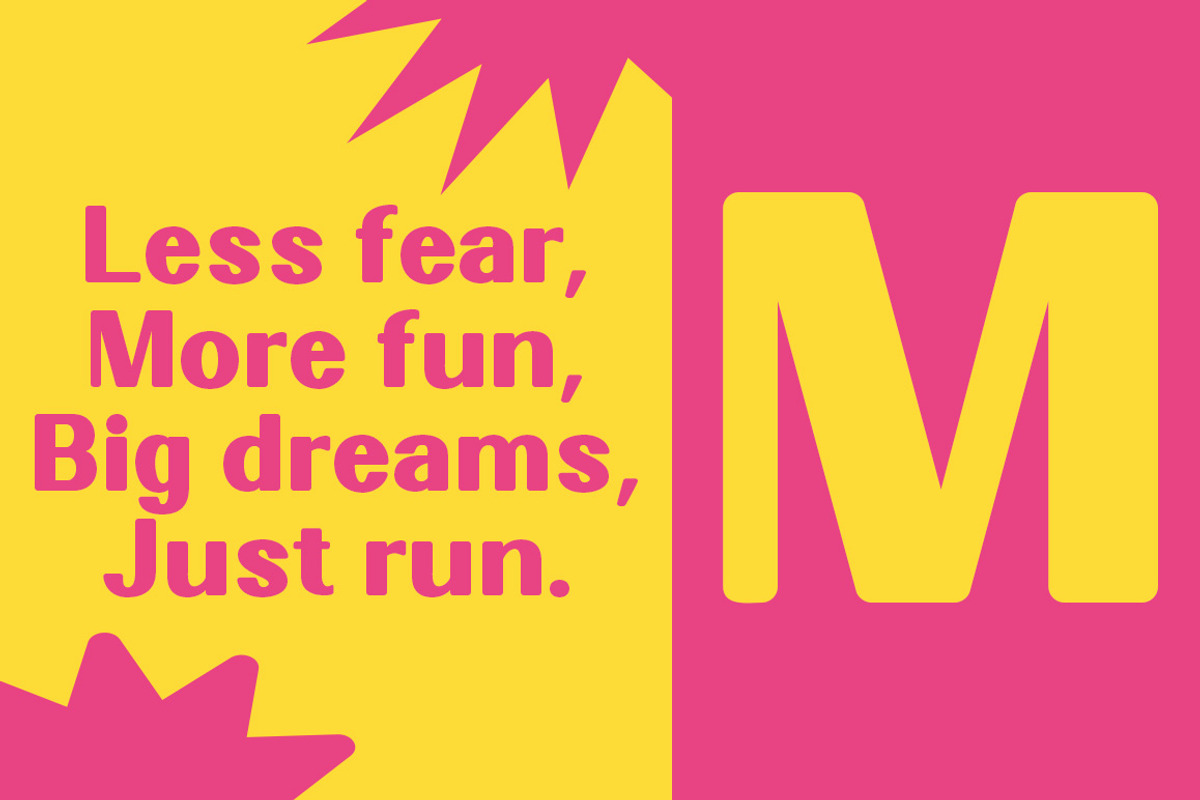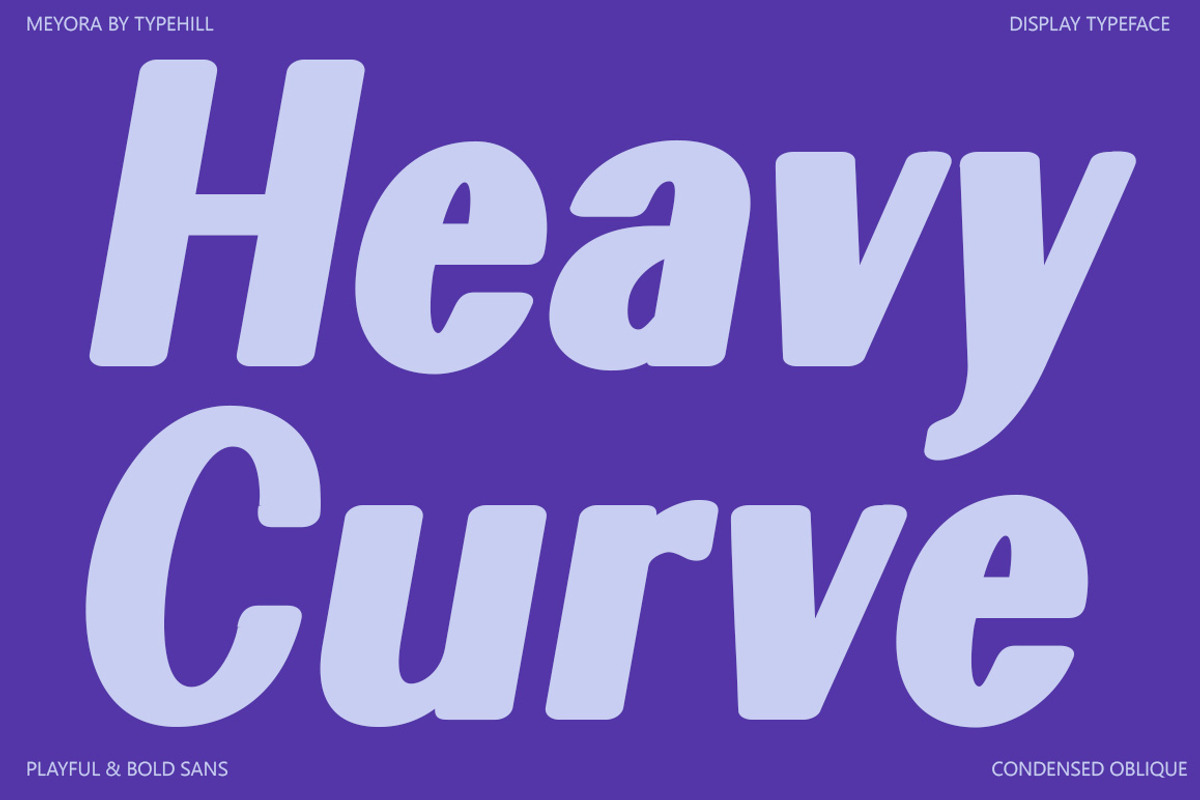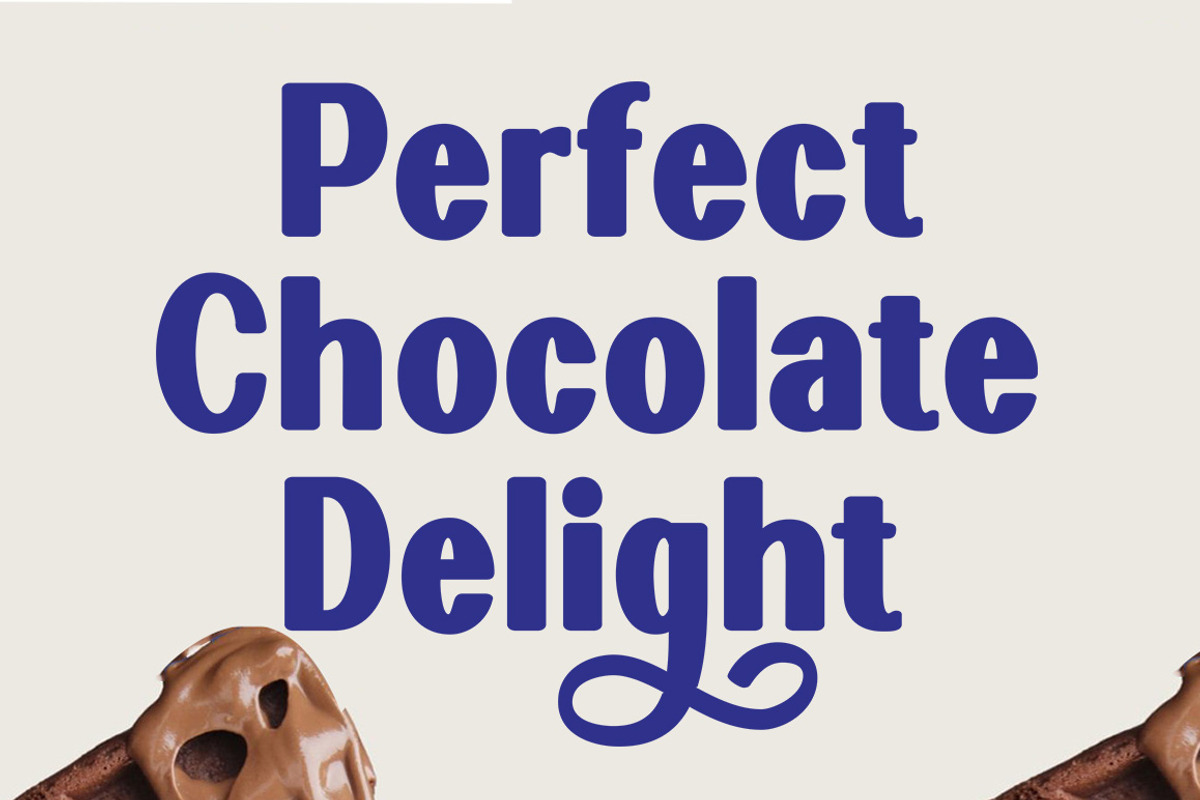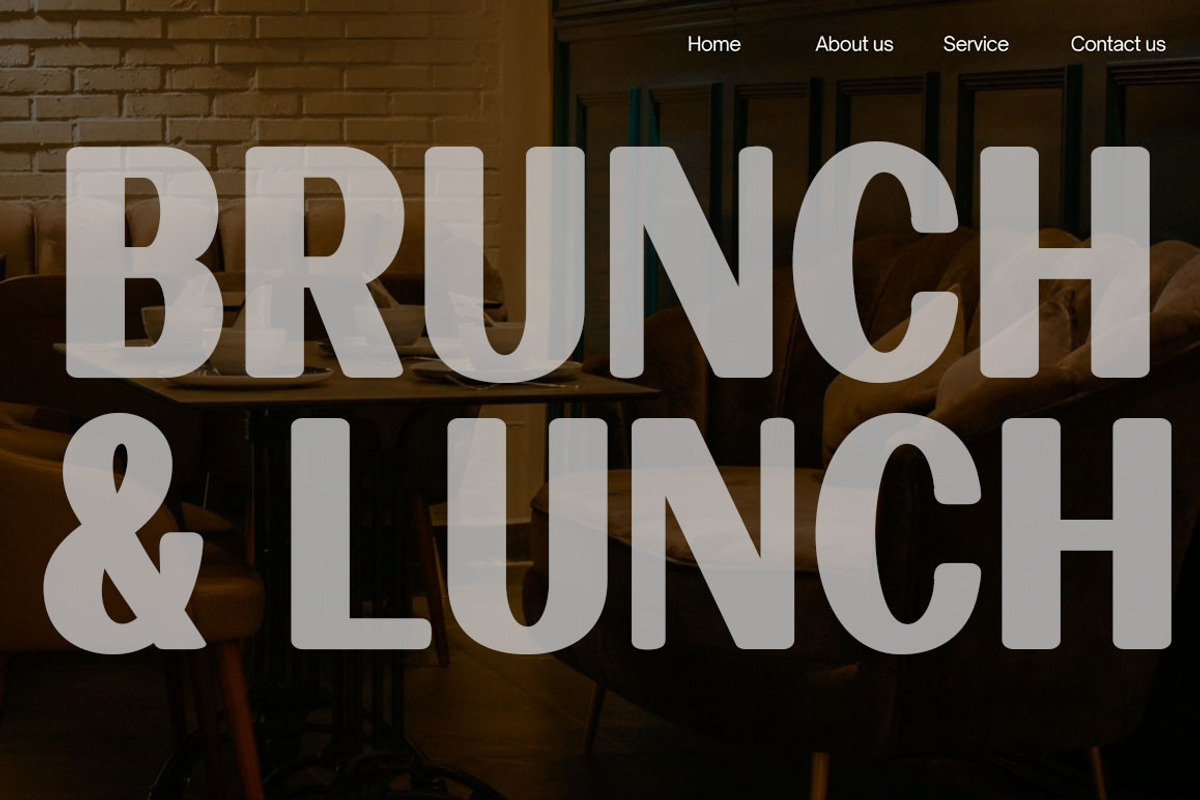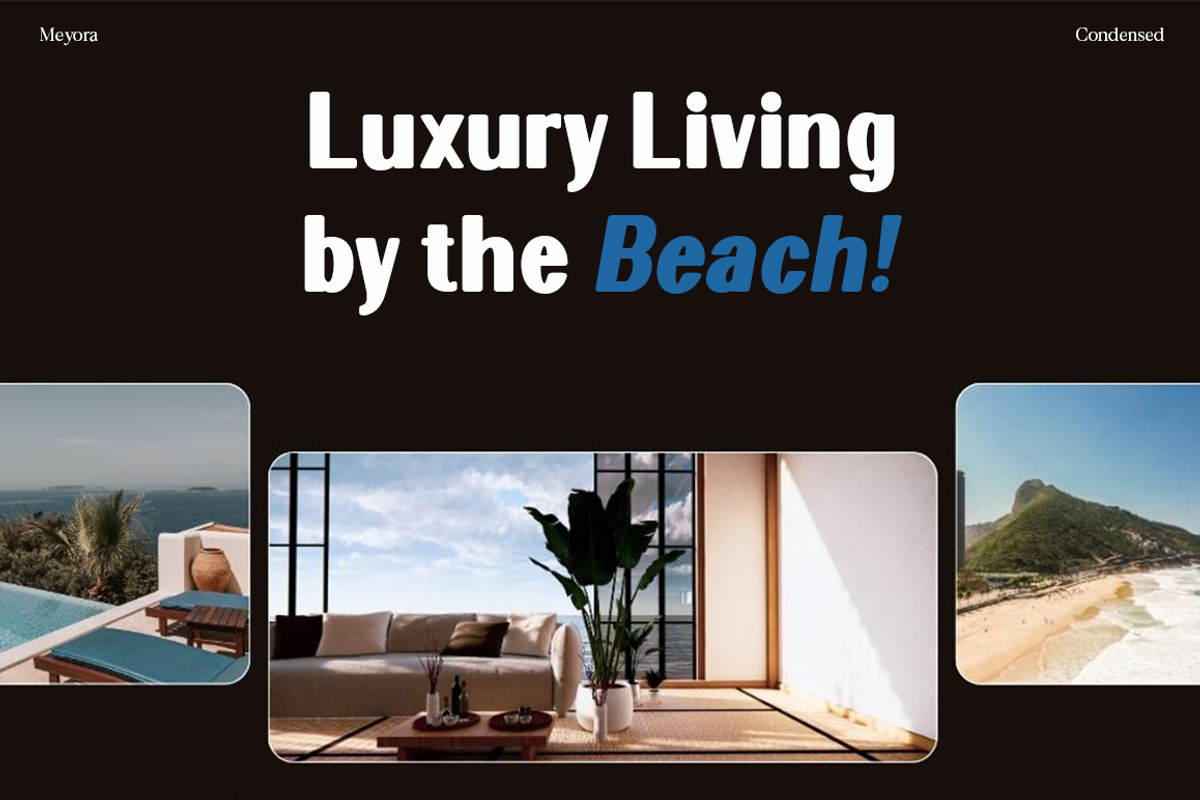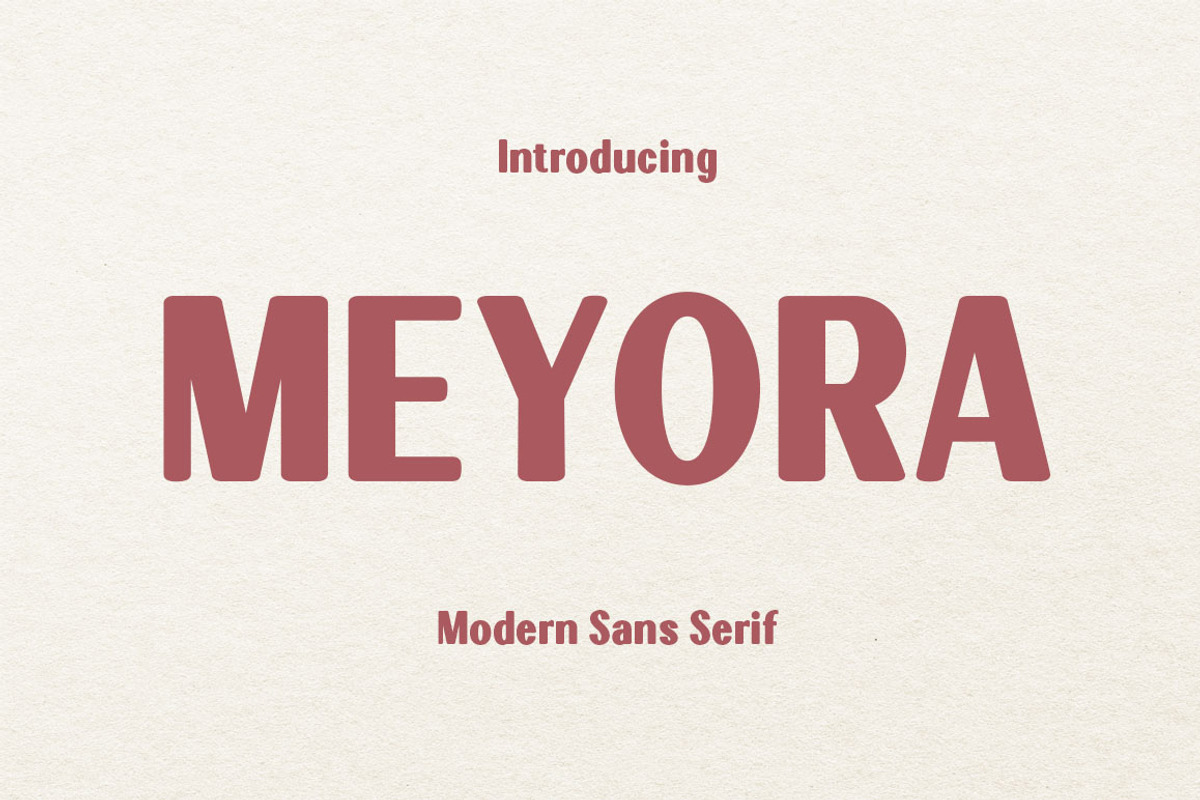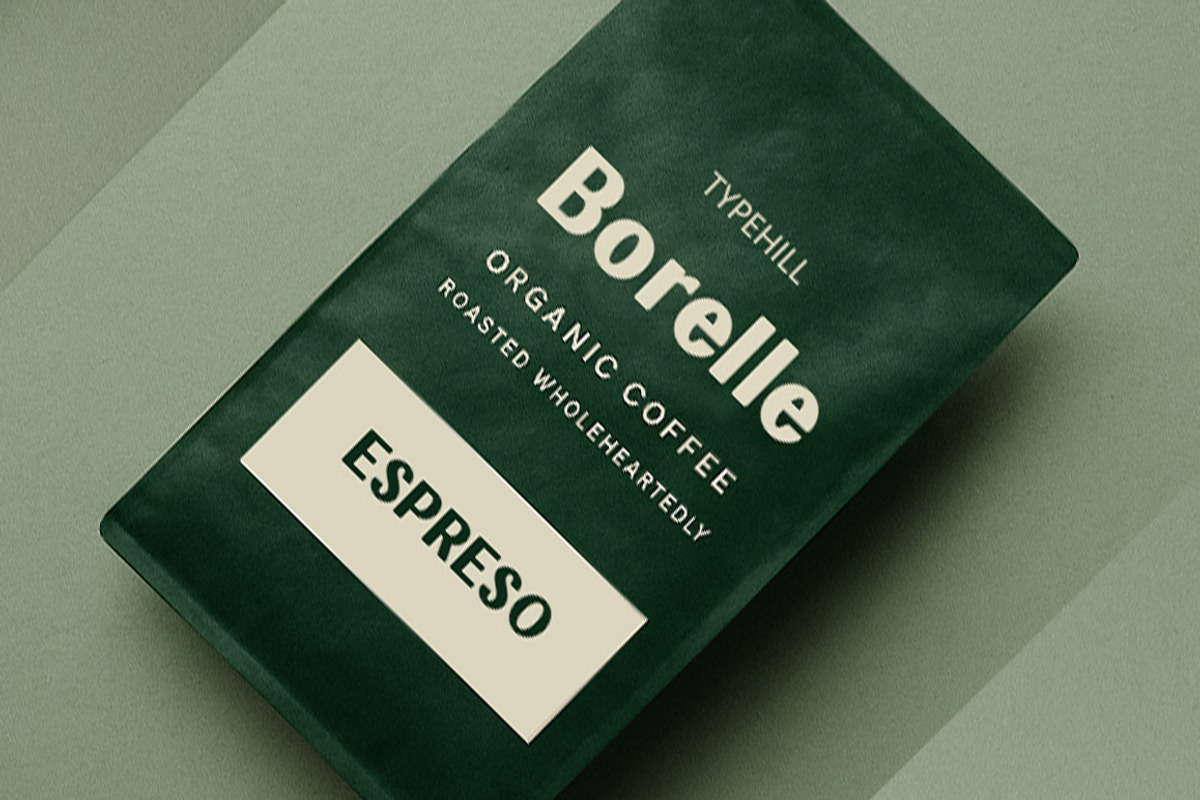
Meyora
Meyora is a modern sans serif typeface with a bold attitude and soft curves. Designed to balance playfulness with clarity, Meyora features clean lines, generous proportions, and subtle ink traps that give it character at both large and small sizes.
Crafted for branding, packaging, editorial, and display use, Meyora shines in bold headlines, confident logos, and contemporary design systems. Its rounded shapes and distinctive rhythm create a friendly yet strong typographic voice.